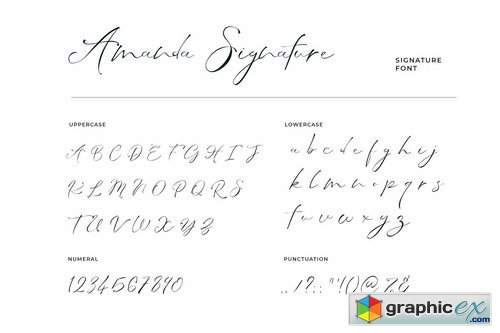
Amanda Signature Font
Amanda Signature is perfect handmade signature font script with a natural & stylish flow. This collection of scripts is perfect for personal branding. It was made with the intention to be used for your personal branding. But, this works well for many applications. Everything from personal branding, logos, name tag, handwritten quotes, product packaging, merchandise, social media & greeting cards. photography signature, advertising could benefit from this collection of these bold signature fonts.